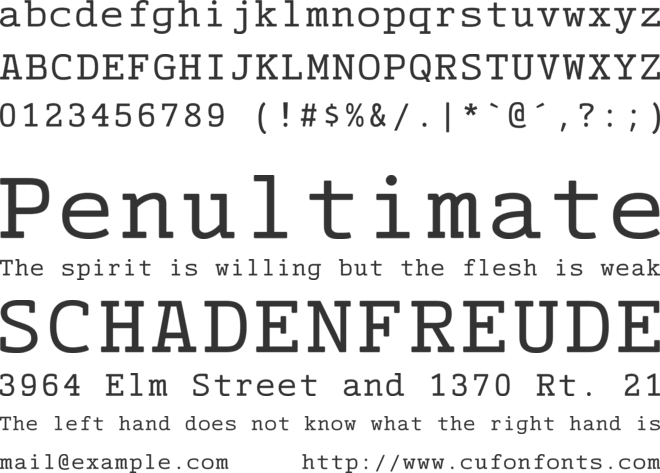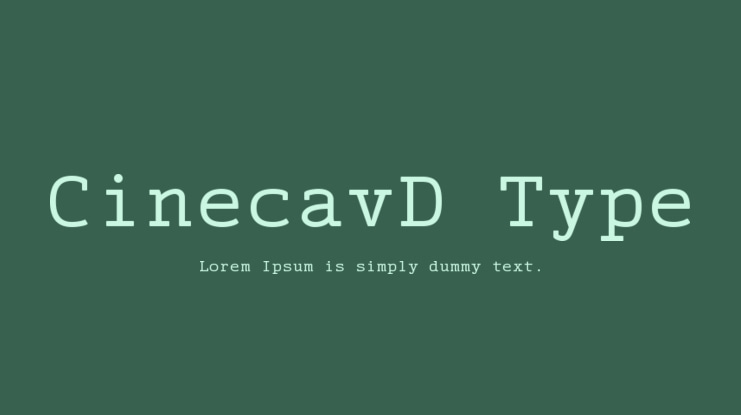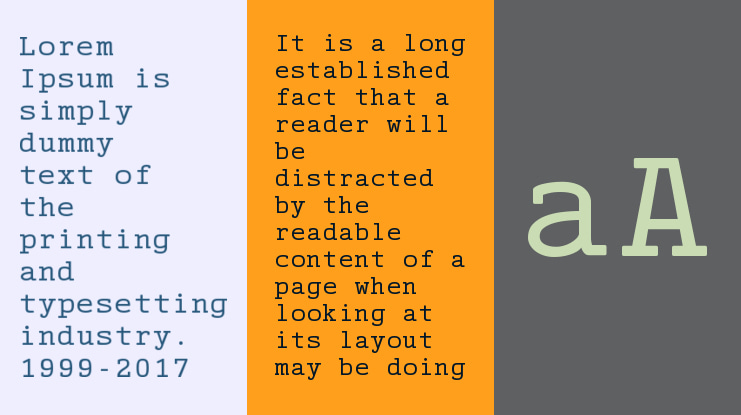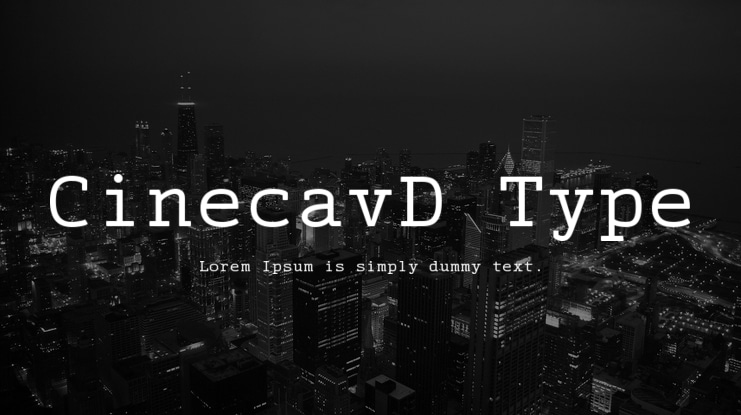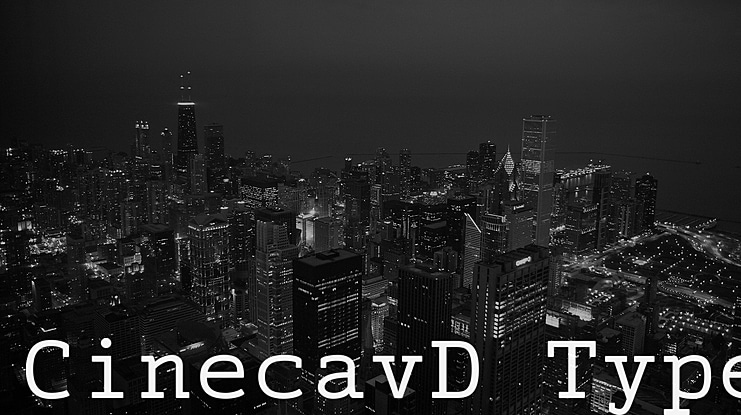
CinecavD Type Font
Cinecav Type is a monospaced serif font, based on Cinecav Serif. The proportions are similar to those of a traditional typewriter font or the popular Courier*. The round capitals have been squared off slightly for a better fit. The lowercase has been widened to fill in the extra space.